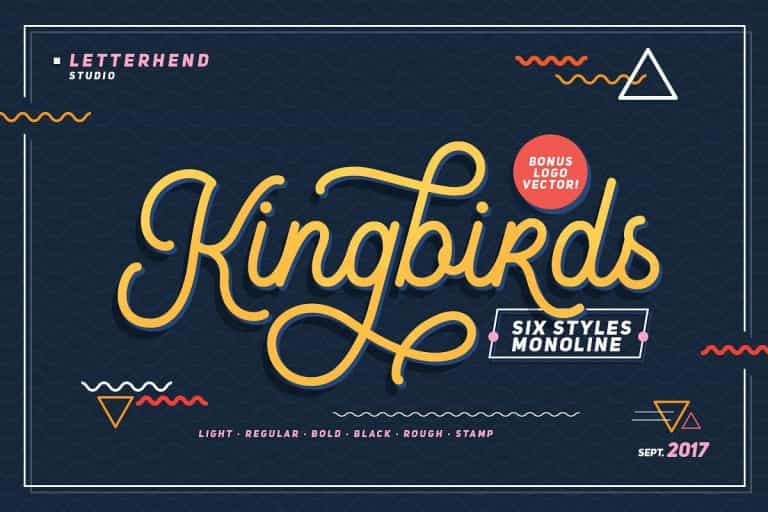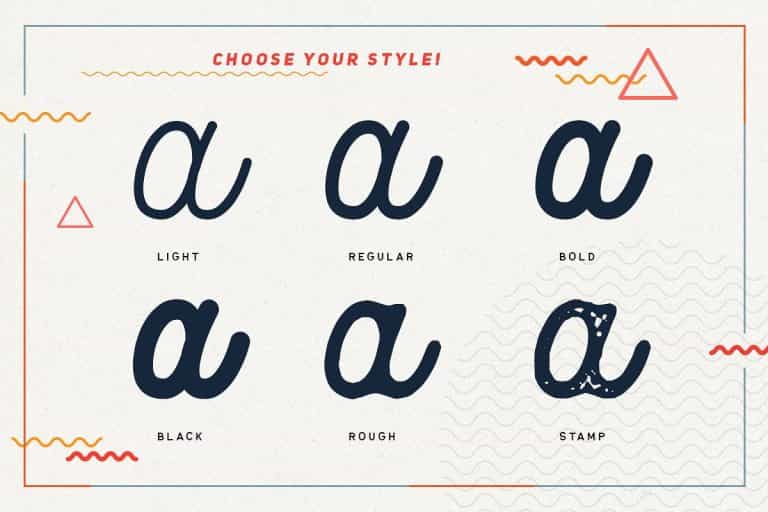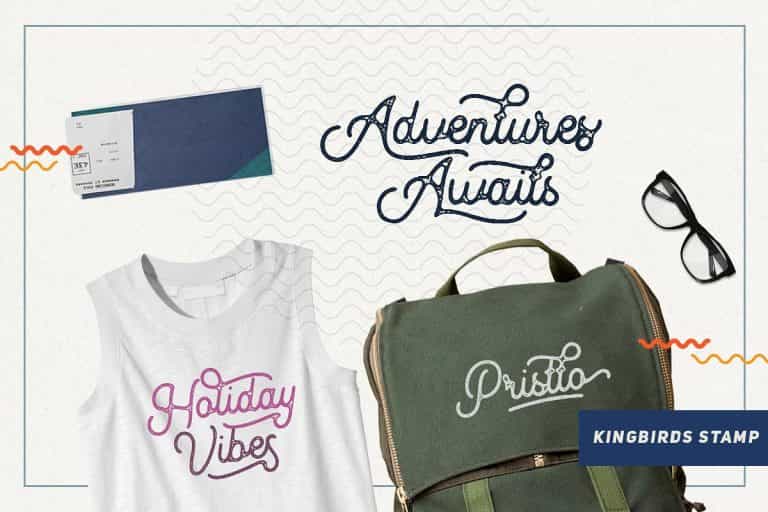
Introducing Kingbirds Font. Letterhend created it. Playful theme?Elegant theme?Vintage theme?you name it. This font is full of opentype features like ligatures, stylistic set alternate and it also supports multilingual. you will also be given a logo template that you can easily edit the text.